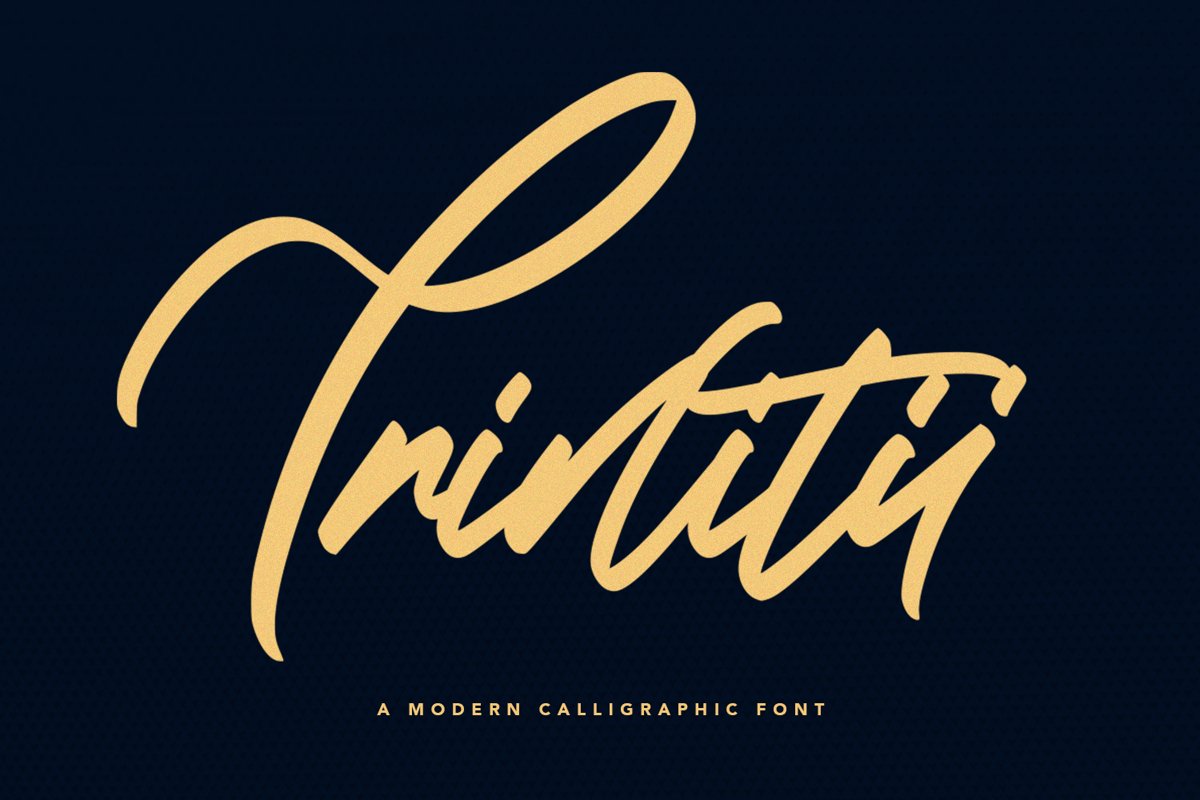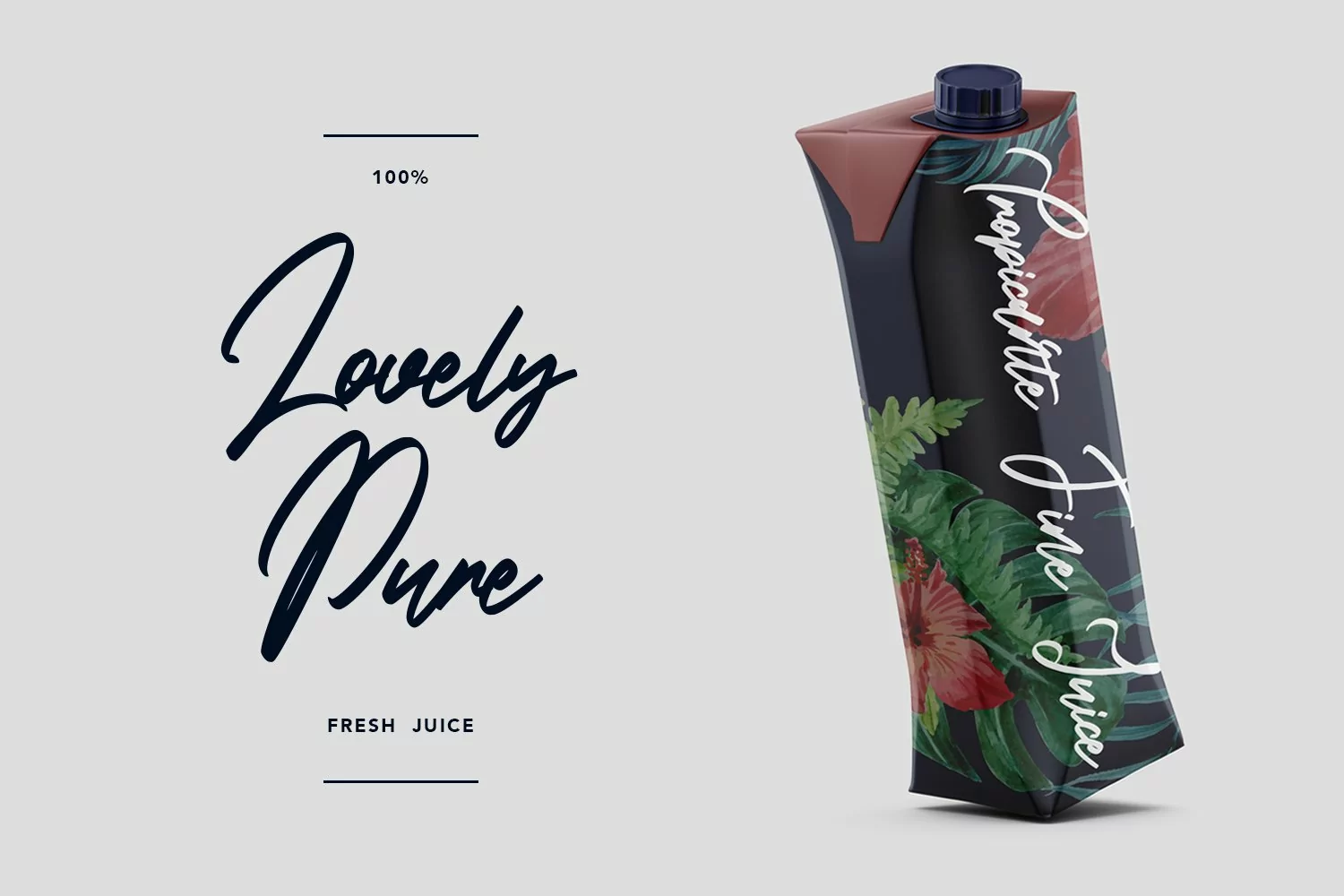
Trinitii - Modern Calligraphic Font that contain lowercase, uppercase, symbol, and also support multi language. There’s a lot ligatures in this font. This Font also comes with ligatures, alternates and many more. this font suitable for fashion, branding, catalog and other design what you want.
Trinitii